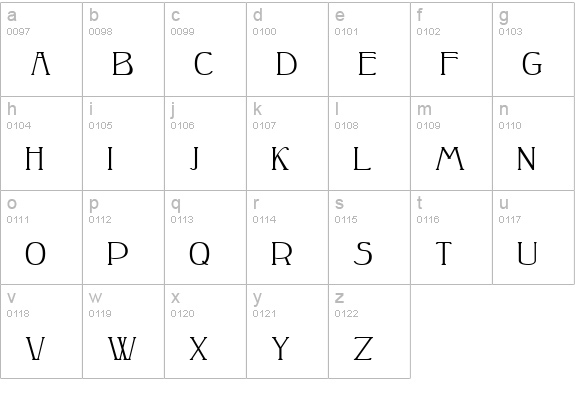
Peake Font Details
Peake font is a stunning typeface that effortlessly combines elegance with a touch of modernity. Its graceful curves and refined letterforms make it the perfect choice for a wide range of design projects, from sophisticated logos to stylish invitations. What sets Peake font apart is its versatility. Whether used for headlines or body text, it exudes a timeless charm that captivates the reader's attention. With its balanced proportions and impeccable spacing, Peake font ensures a harmonious and legible reading experience. But the best part? Peake font is absolutely free! You read that right – this exquisite font can be freely downloaded at FontsMarket.com. Now, you can enhance your designs with a premium-looking typeface without spending a dime. Designed to meet the needs of both professional designers and aspiring creatives, Peake font offers a wide range of weights and styles, allowing you to experiment and find the perfect fit for your project. Its extensive character set includes international symbols and diacritics, making it suitable for multilingual designs. Imagine the possibilities – with Peake font, you can effortlessly elevate your brand identity, create eye-catching advertisements, or craft stunning wedding invitations. Its timeless elegance and versatility make it an essential tool for any designer's toolkit. So why wait? Go ahead and visit FontsMarket.com to freely download Peake font today. Join the countless designers who have embraced this font's beauty and unlock a world of creative possibilities. Experience the elegance and sophistication of Peake font – your designs will thank you.